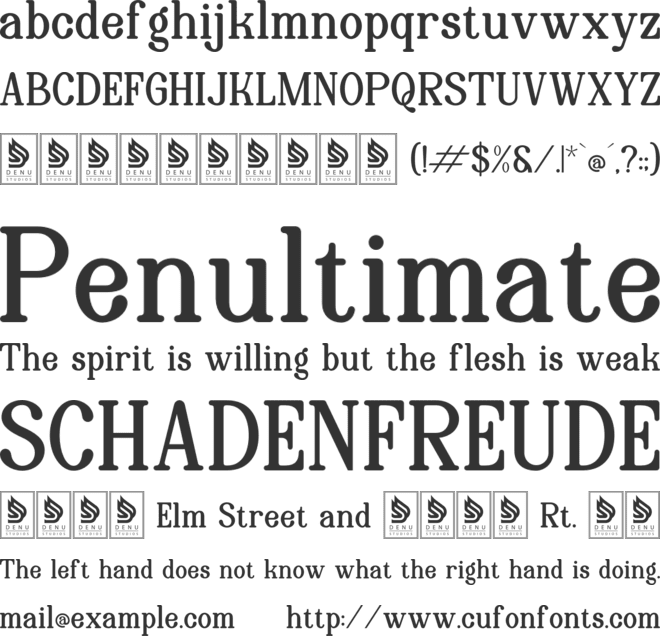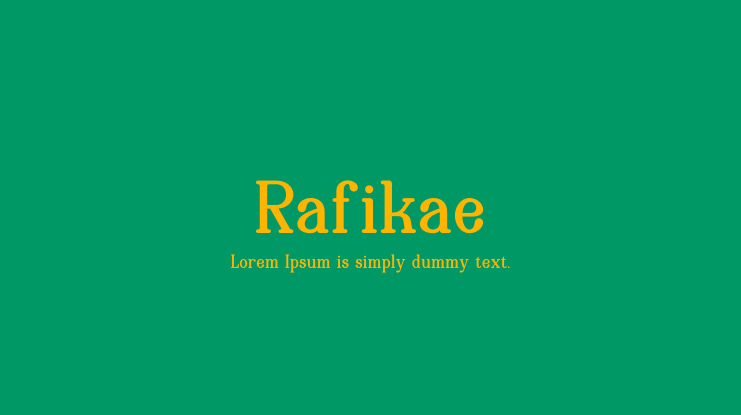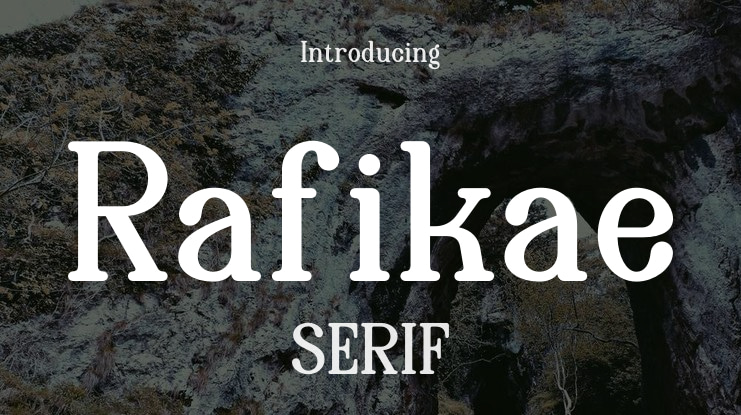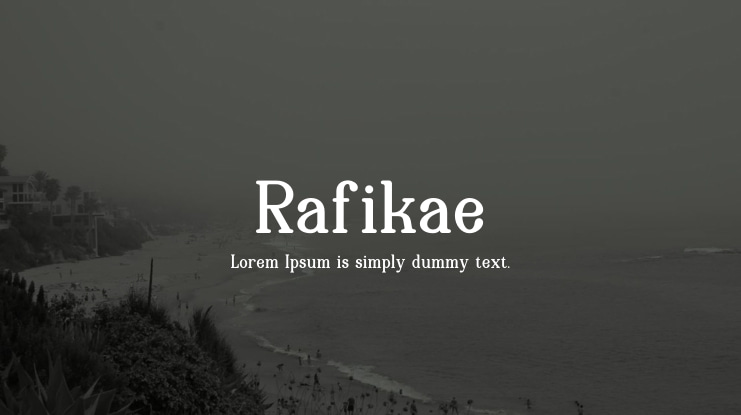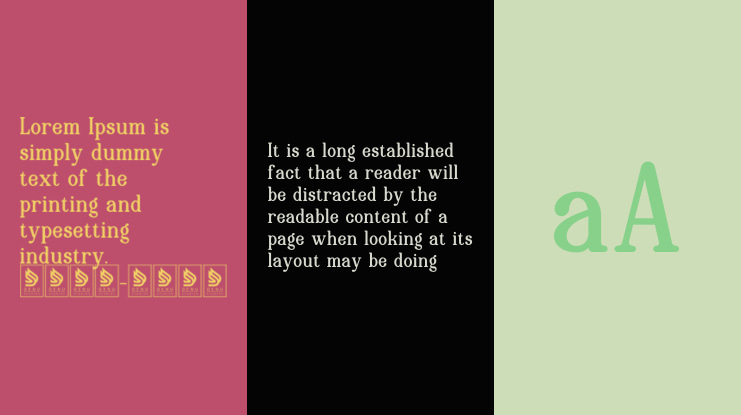
**Rafikae | Modern Serif Font** is ideal for various projects including logos, branding, homeware designs, product packaging, mugs, quotes, posters, shopping bags, t-shirts, book covers, name cards, invitation cards, greeting cards, labels, photography, watermarks, special events, and any other project that requires a modern serif font touch.